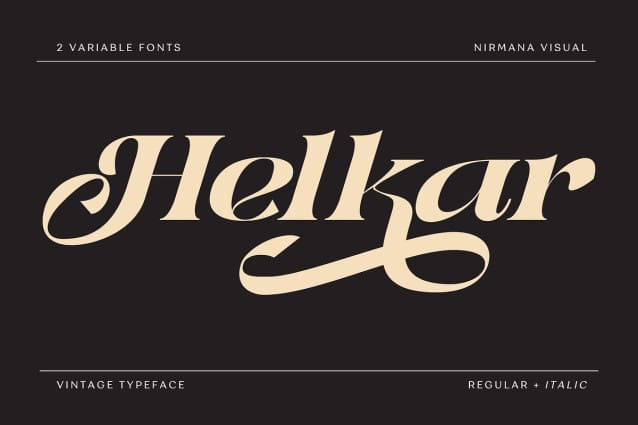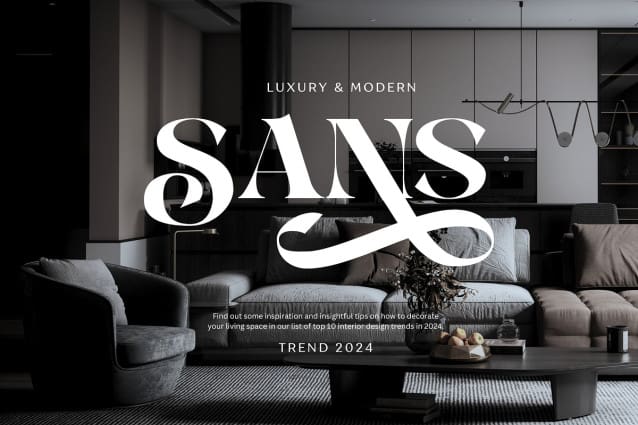
Helkar Font
Helkar Font offers beautiful typographic harmony for a diversity of design projects, including logos & branding, social media posts, advertisements & product designs.